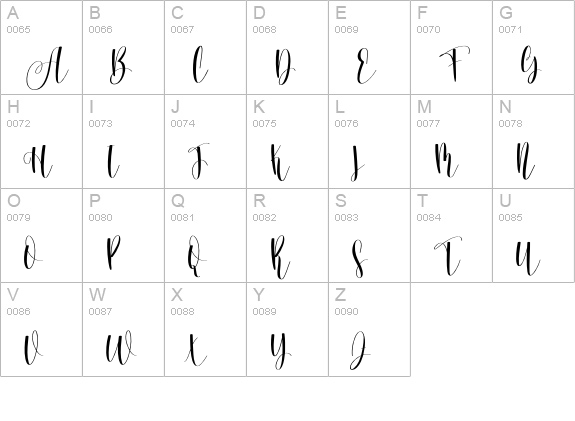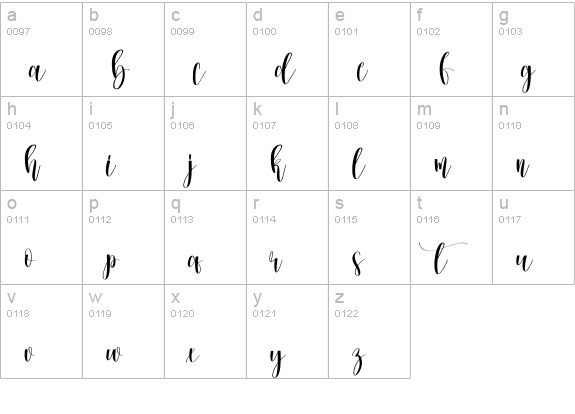
Wonderful Christmas Font Details
Wonderful Christmas is a free for personal use font in the Script > Handwritten category, designed by scratchones. It has been downloaded 3 times and is available for Windows, Mac and Linux.
The Wonderful Christmas font is a delightful and festive typeface perfect for spreading holiday cheer in all your design projects. With its playful and whimsical style, this font captures the magic of the holiday season and will add a special touch to your Christmas cards, invitations, posters, and more. The Wonderful Christmas font features charming ornaments and decorative elements that will bring a warm and joyful feel to your designs.